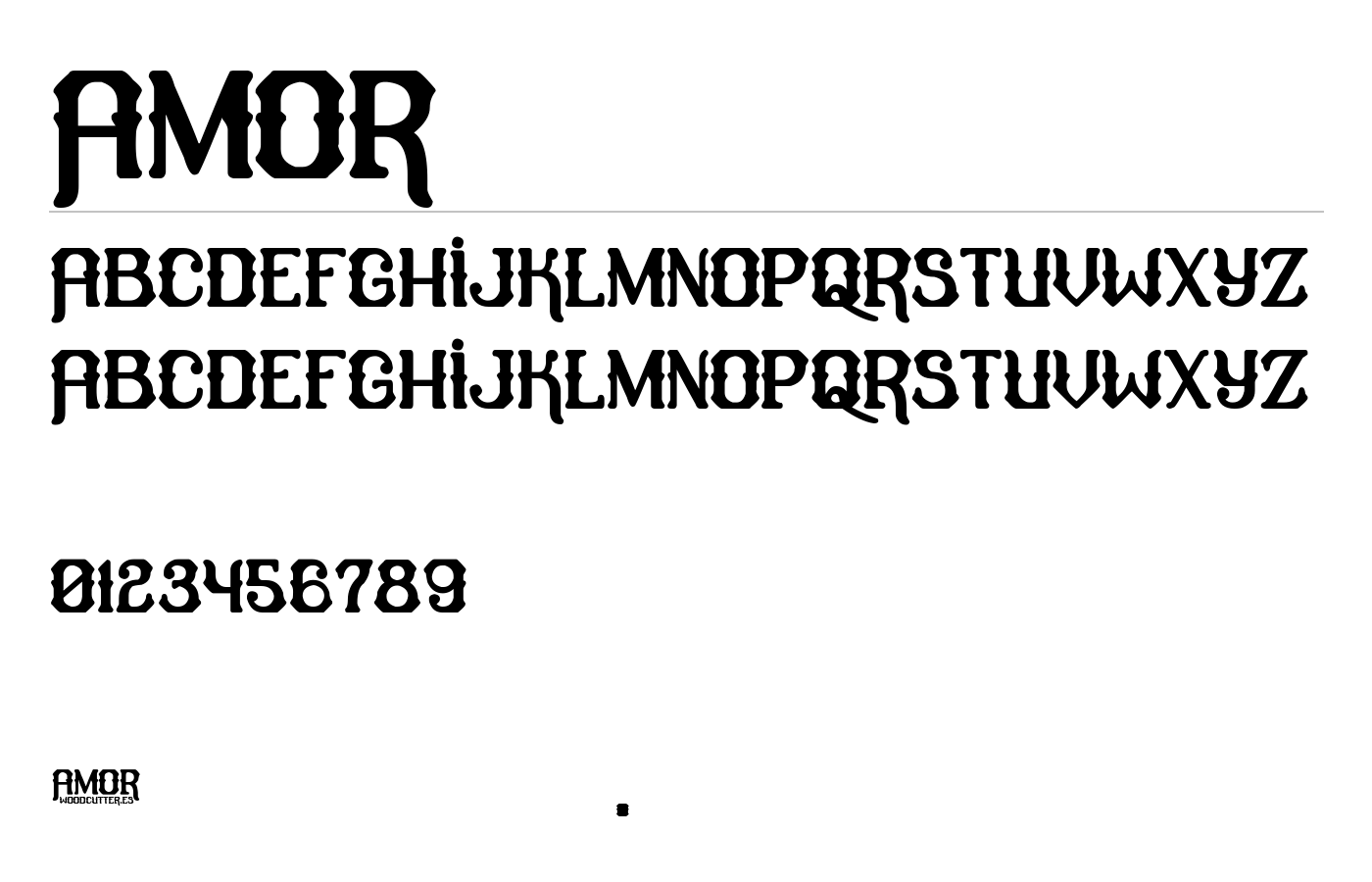
Amor is a bold slab serif font with a distinctive vintage and western-inspired feel, characterized by strong, blocky letterforms with thick, bracketed serifs and subtle decorative details. Its high contrast and unique letter shapes make it stand out, ideal for creating impactful headlines, logos, and designs that evoke a rugged yet stylish personality. This font works best in branding, posters, and editorial projects where a bold, memorable statement is needed.